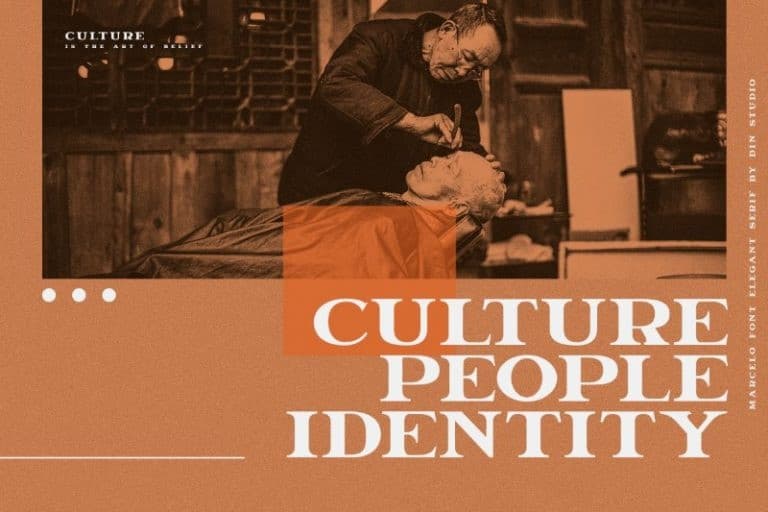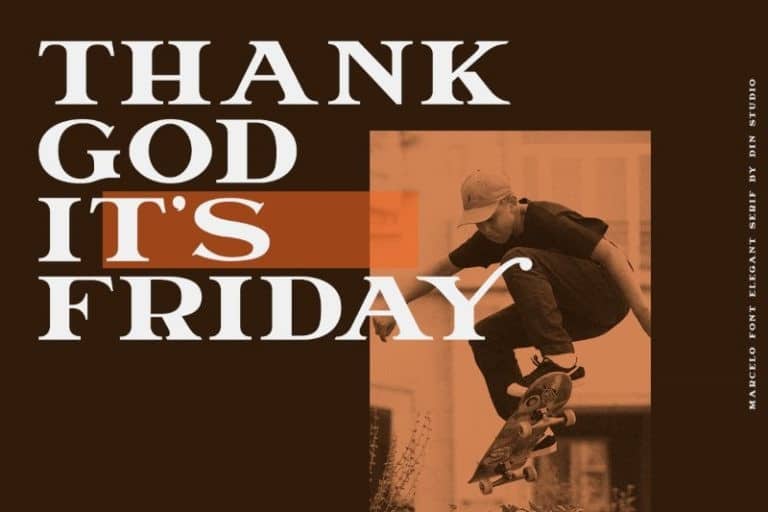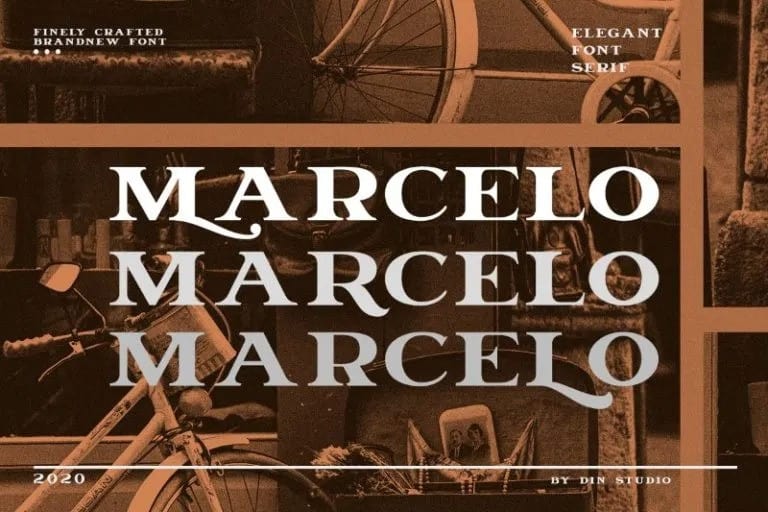
Marcelo Serif Font
Marcelo Serif Font is a bold contemporary Serif display typeface that stands out with a semi condensed style, a high visual center, and sharp-angled serifs. It’s designed and shared by Din Studio. And It’s an Engraved display font. The design of typeface will make your design more beautiful and inspiring. This font will suitable for any project, like branding, print template, logo and etc.